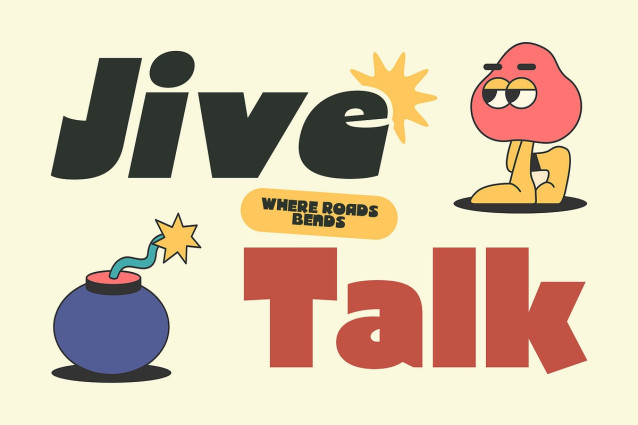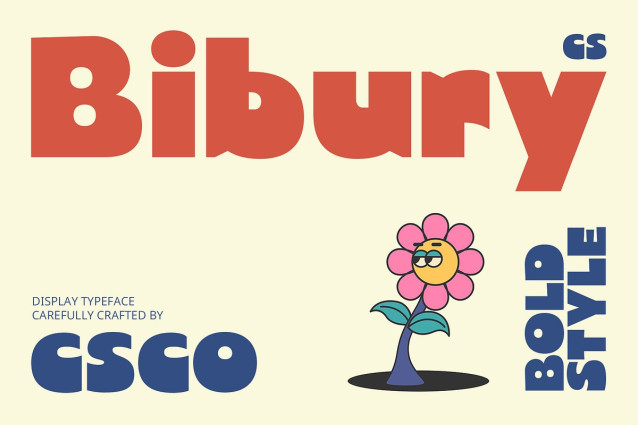
CS Bibury Font
CS Bibury Font is a display font that captures the bold spirit of the ’90s with its eye-catching shapes and lively attitude. Its chunky letterforms and confident curves bring instant energy and personality to any design, channeling the expressive style of a creative decade.
Funky Forms with Dynamic Movement Inspired by the funky aesthetics of ’90s music posters, cartoons, and pop culture, CS Bibury features exaggerated curves, playful proportions, and vibrant rhythm. Each character feels alive, echoing the visual excitement of TV shows, retro ads, and neon fashion trends.
A Cheerful Throwback for Creative Impact With its upbeat, colorful vibe, CS Bibury radiates joy and nostalgia. This font is perfect for projects that want to stand out and have fun—from branding and packaging to digital graphics and social content. Its retro appeal shines in creative campaigns, youth-oriented projects, or anything that celebrates bold expression and nostalgic fun.
Designed to Evoke Emotion and Style More than just a retro typeface, CS Bibury captures the essence of a visual era that was full of freedom, creativity, and flair. It’s a go-to font for designers who want to inject a sense of vintage cool and playful confidence into their work.